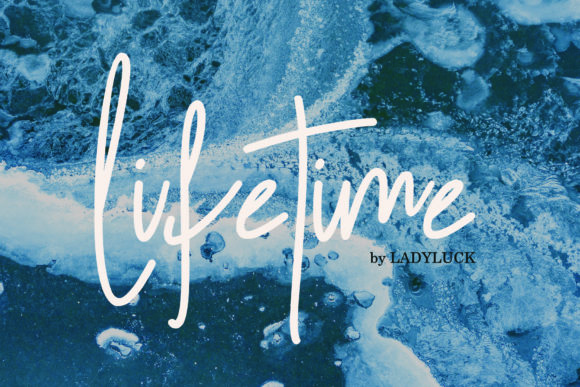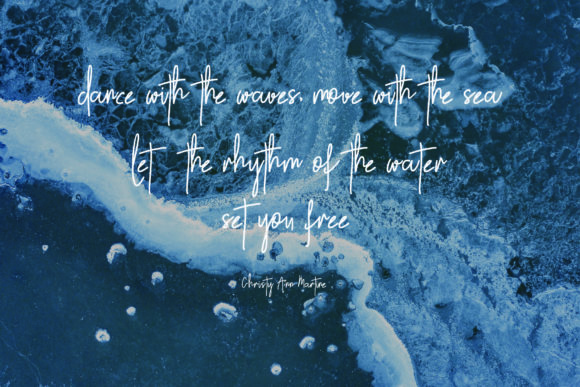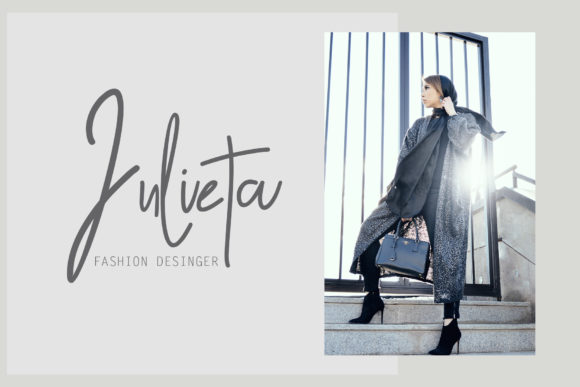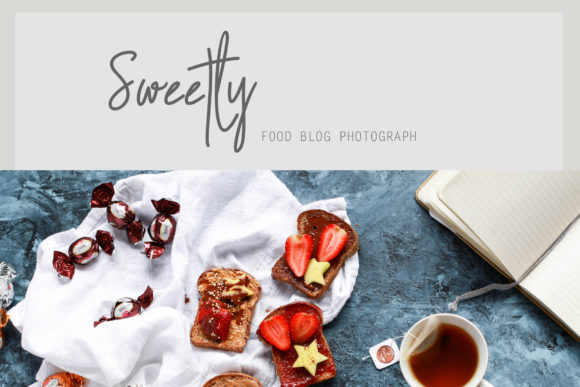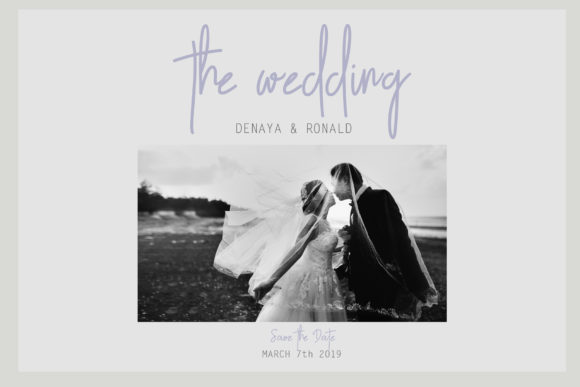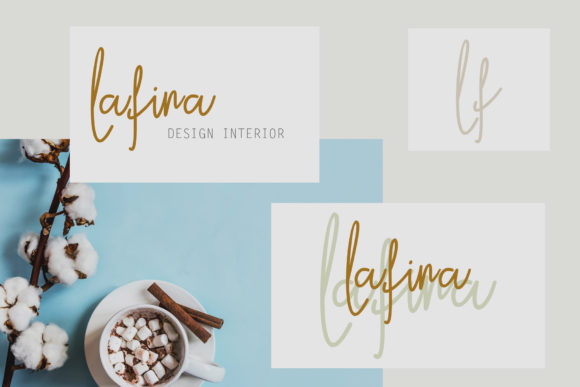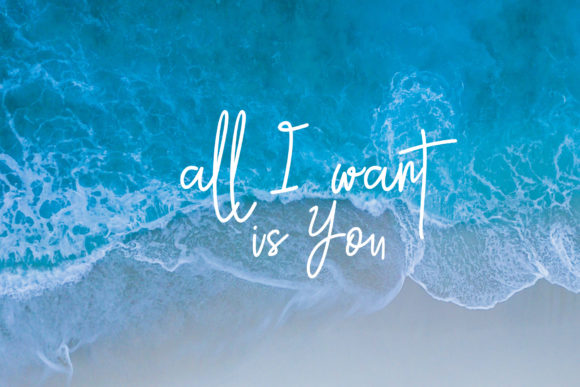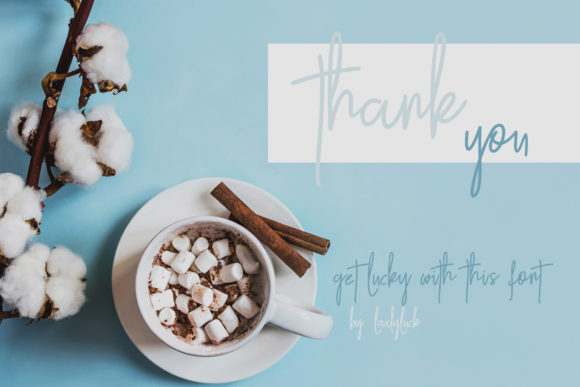
Lifetime Font
About Lifetime Font
The Lifetime Script is a fashionable and quirky new handwriting font with some sexy and stylish extras. It was created to look as close to a natural handwritten script as possible. Get lucky with this one.